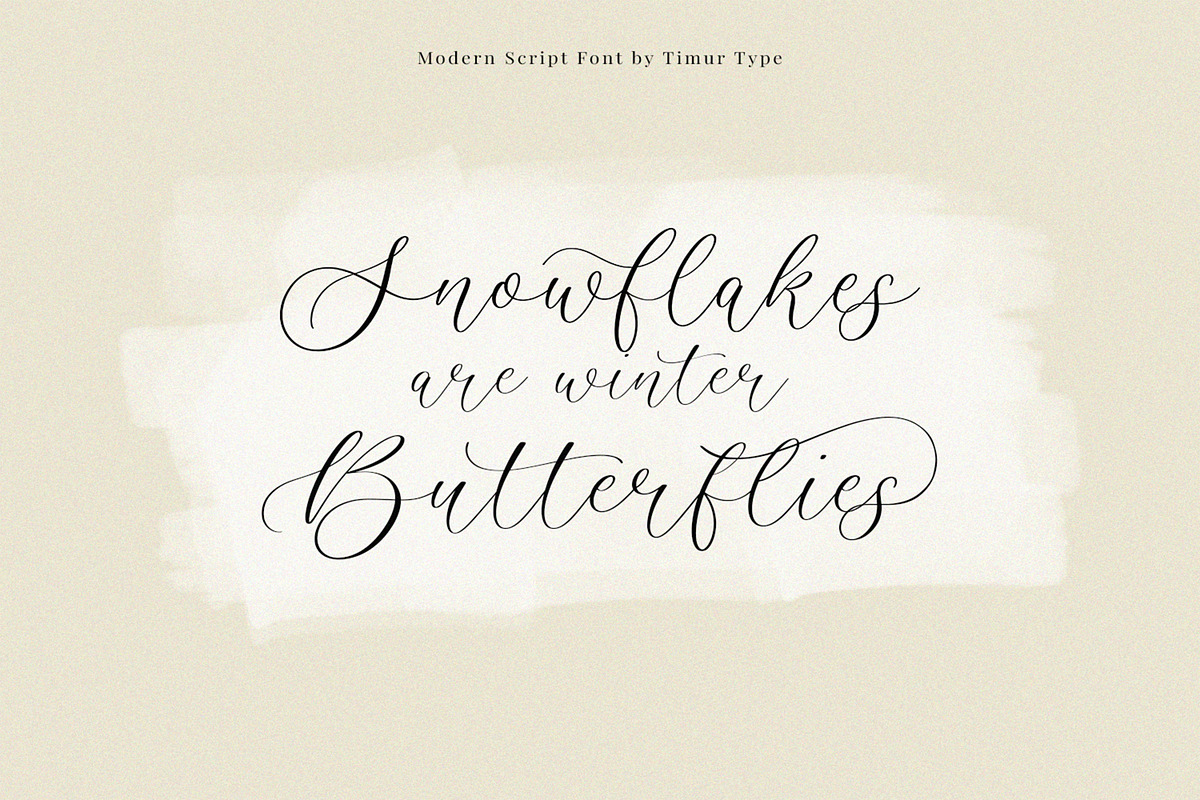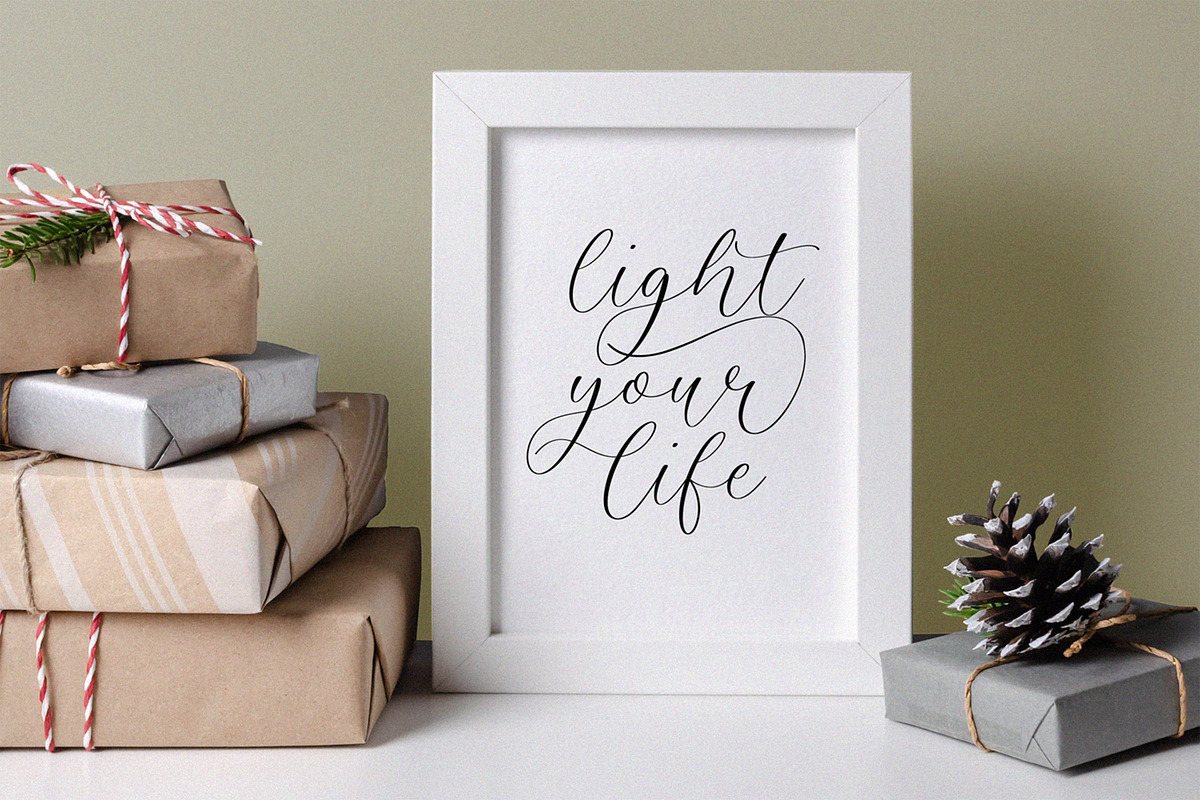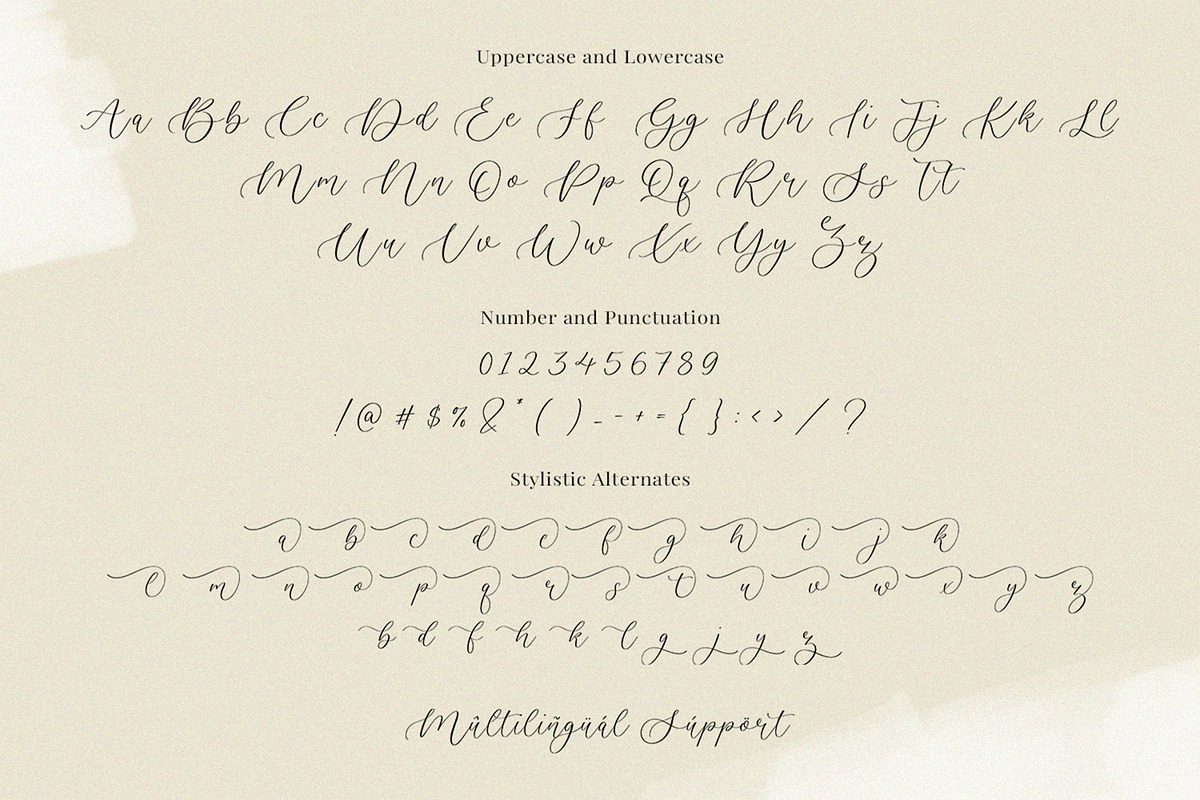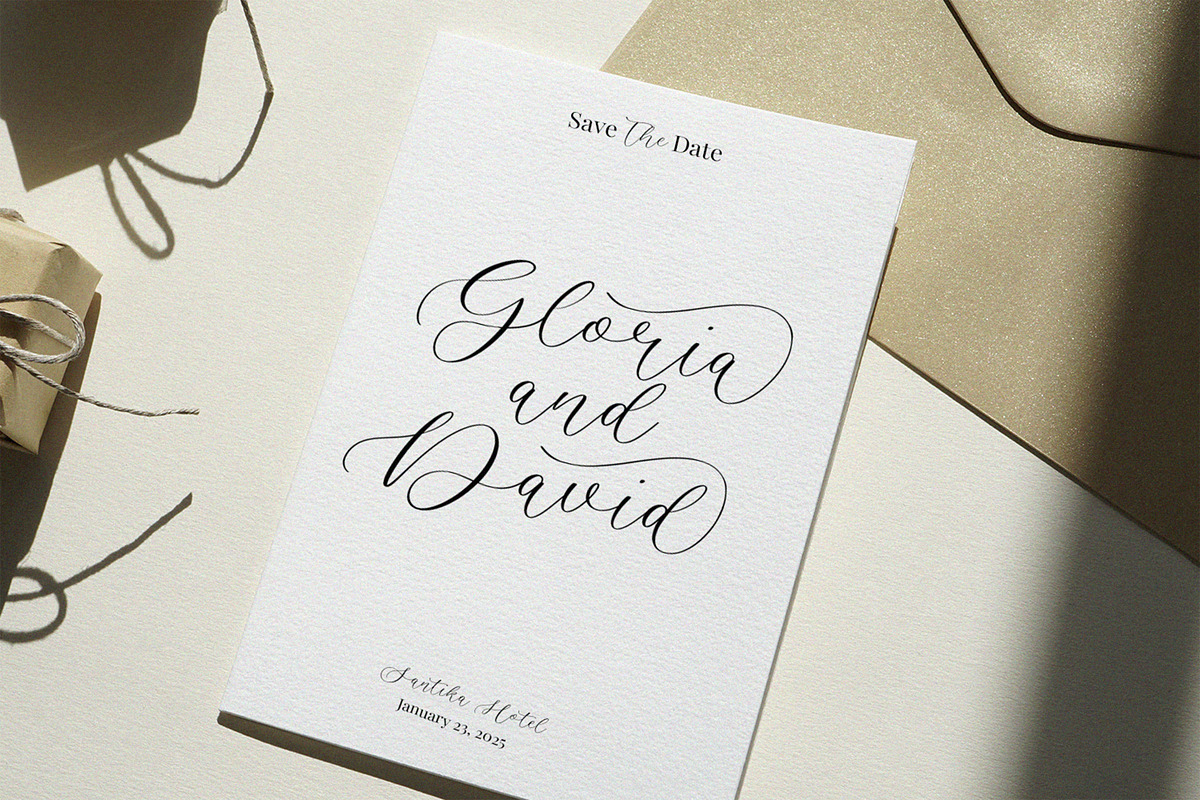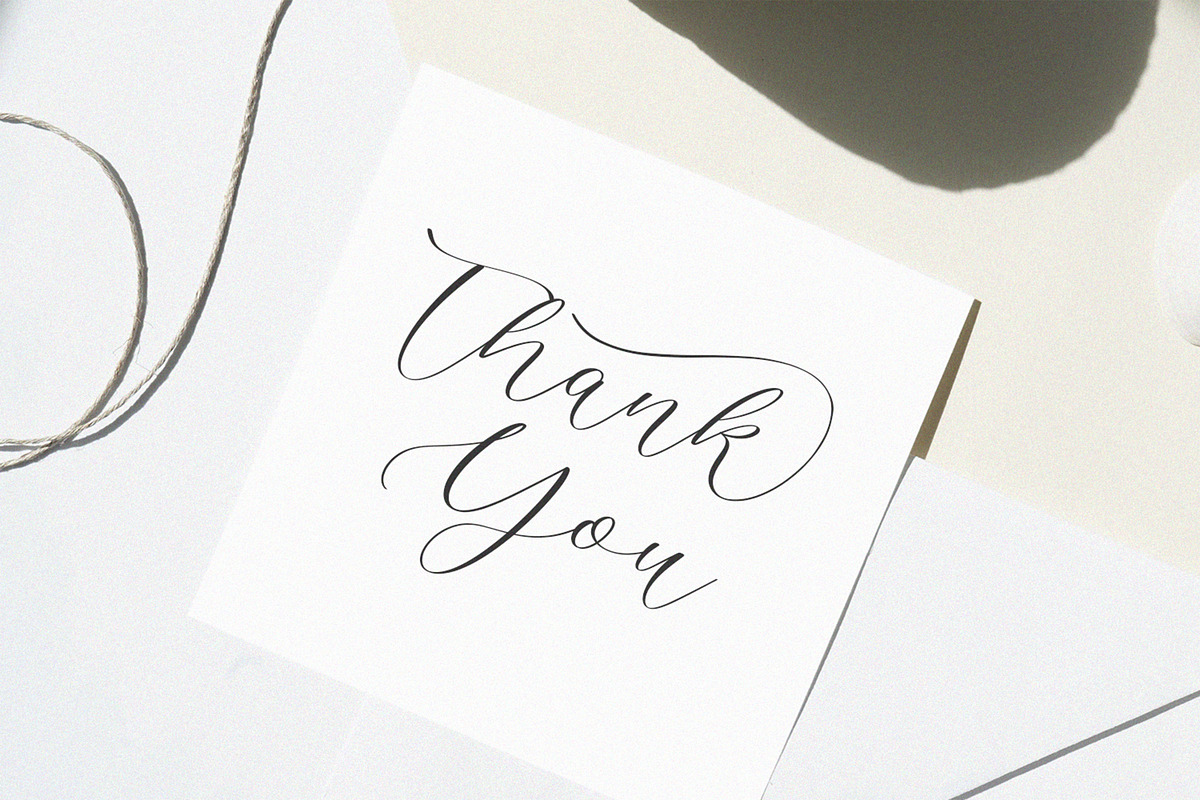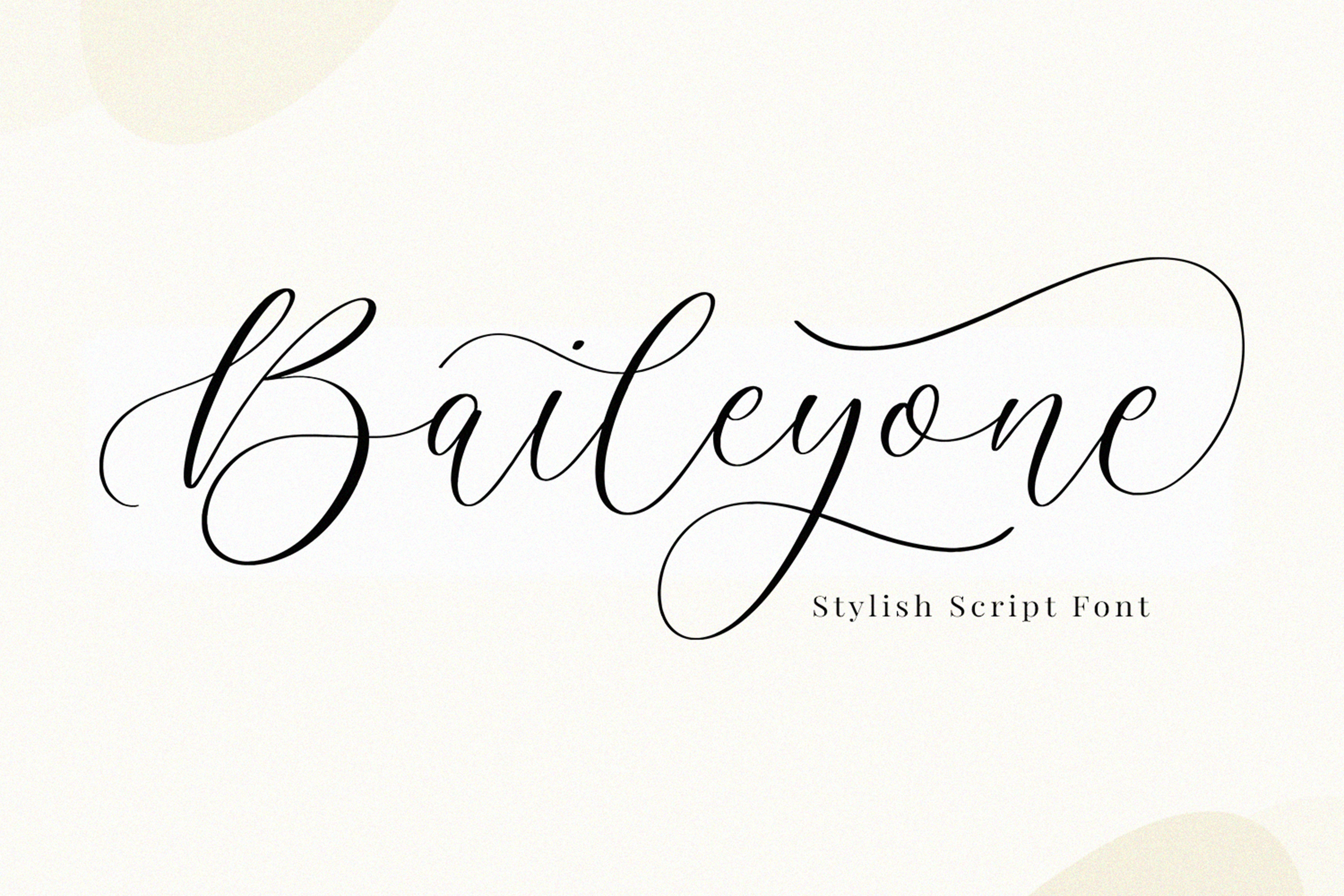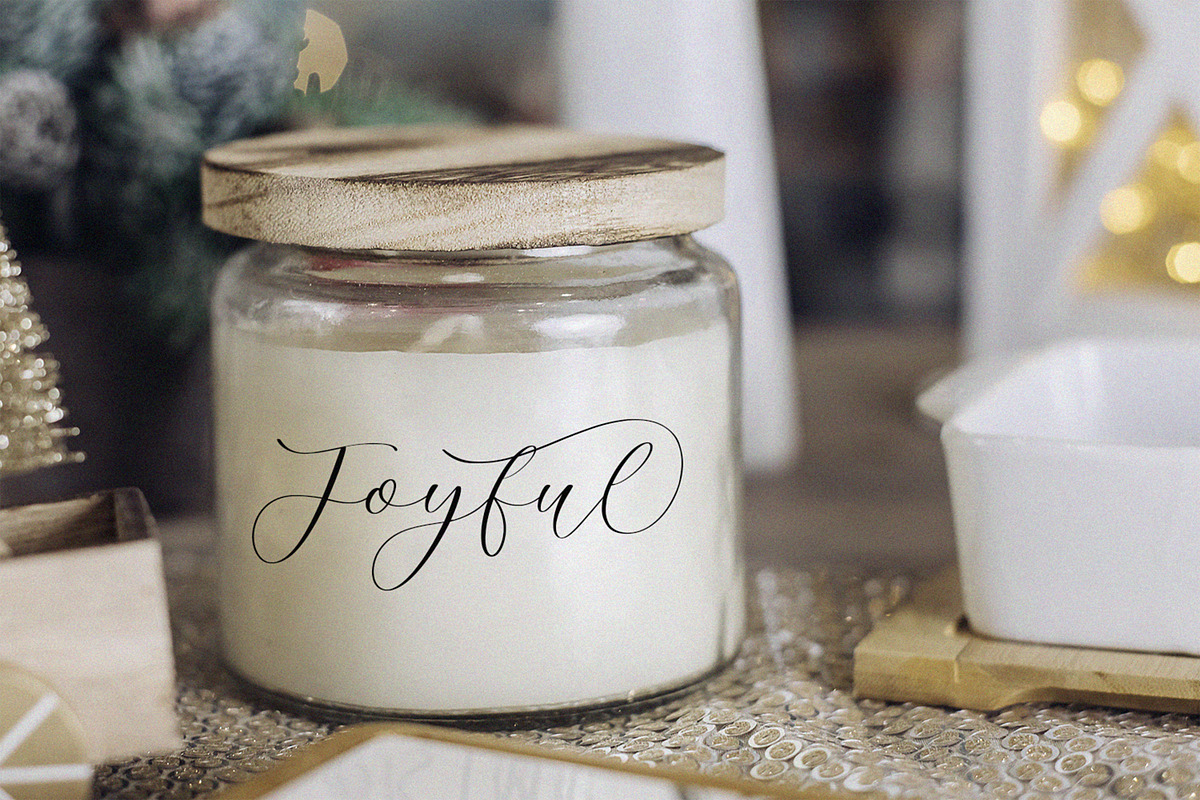
Baileyone - Stylish Script Font
Proudly Present Baileyone
Baileyone is a Handwritten script font that is modern and fresh, and will bring a warm and inviting feel to your business. Take advantage of the fonts and experience the magic for yourself. Baileyone is perfect for product packaging, branding project, megazine, social media, wedding, or just used to express words above the background.